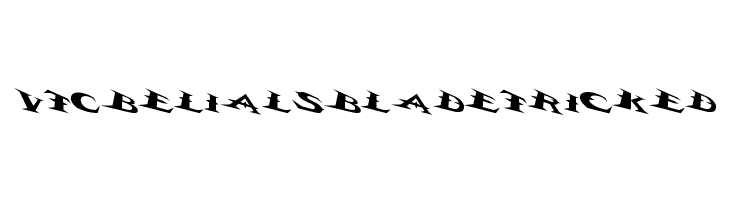
A jagged, edgy font with sharp, angular lines for a rebellious look.
A bold, distressed font with a grunge, stencil-like appearance.
A bold, sliced, and italicized font with a dynamic, edgy appearance.
An edgy, thorn-like font with sharp, irregular strokes.
A bold, angular font with a sharp, dynamic style.
A bold, distressed font with a gritty, eroded appearance.
A bold, distressed font with a rugged, volcanic texture.
A bold, jagged font with a distressed, edgy style.